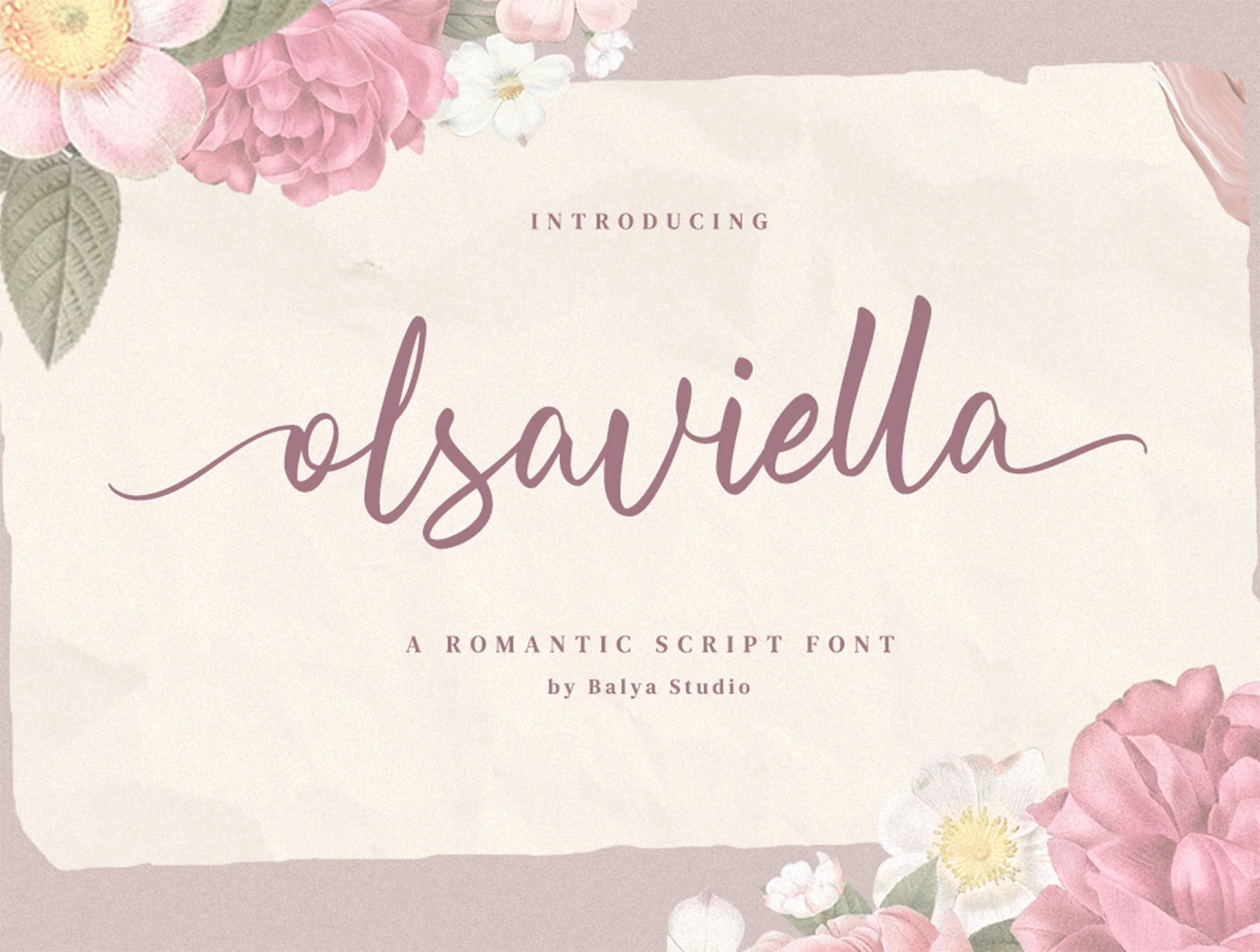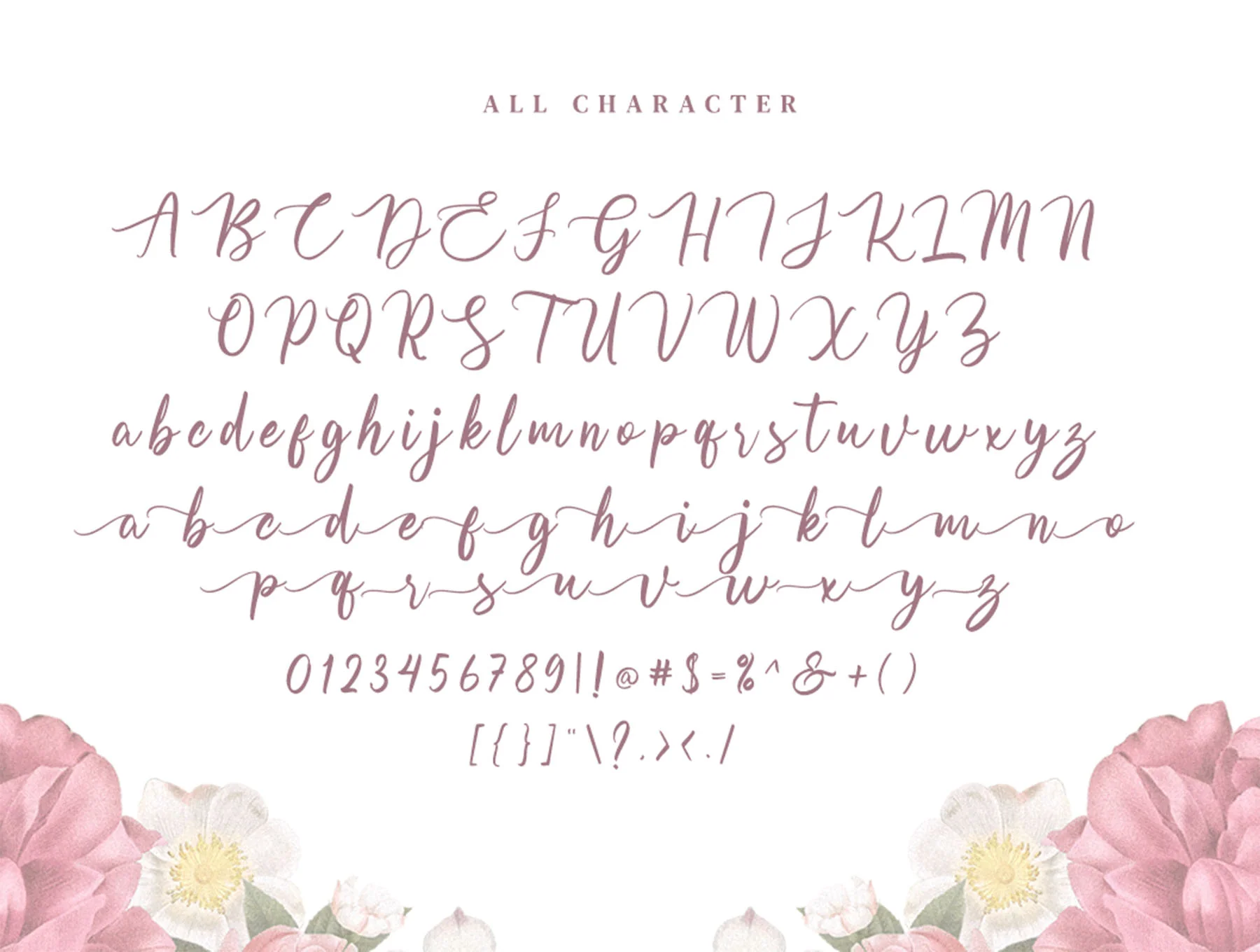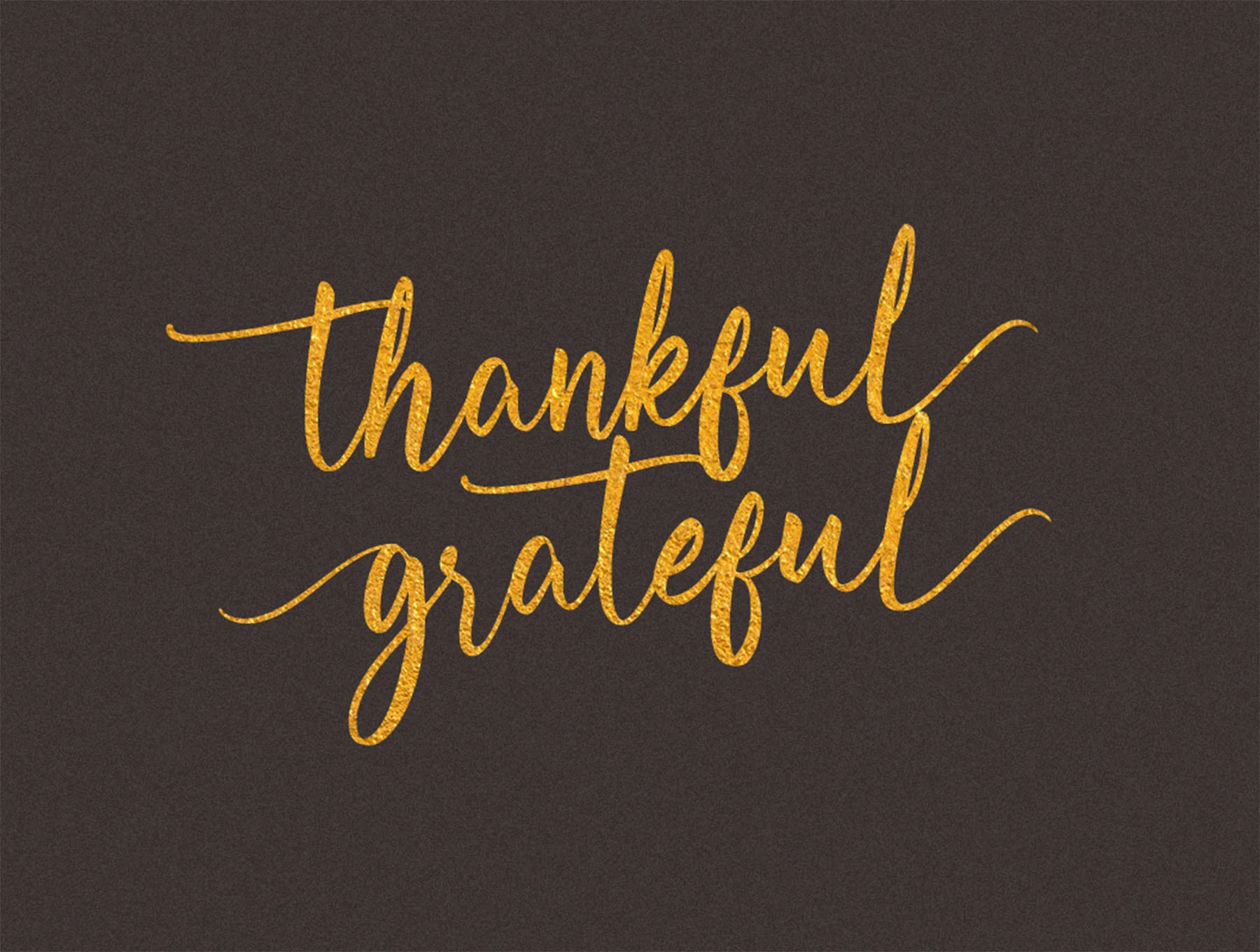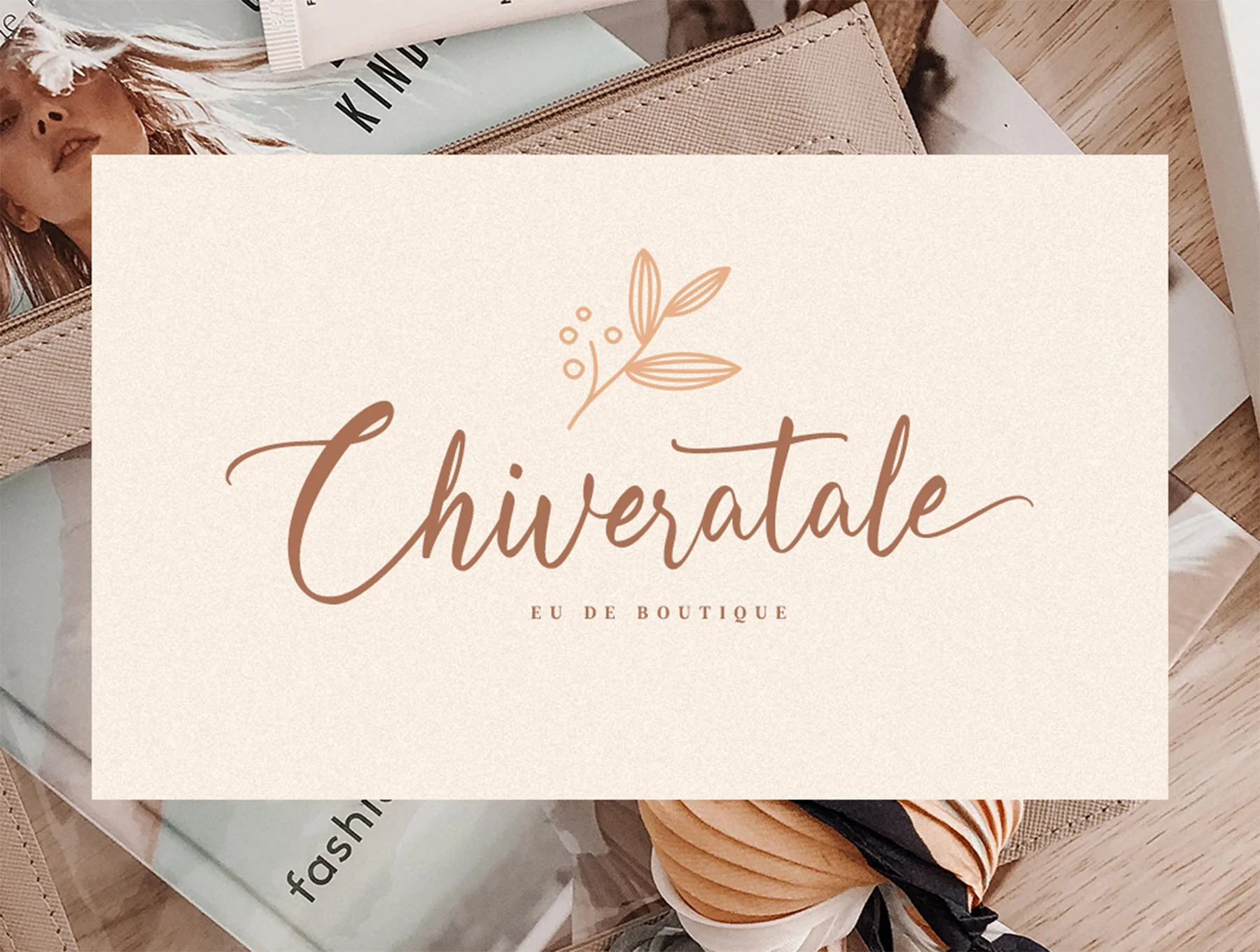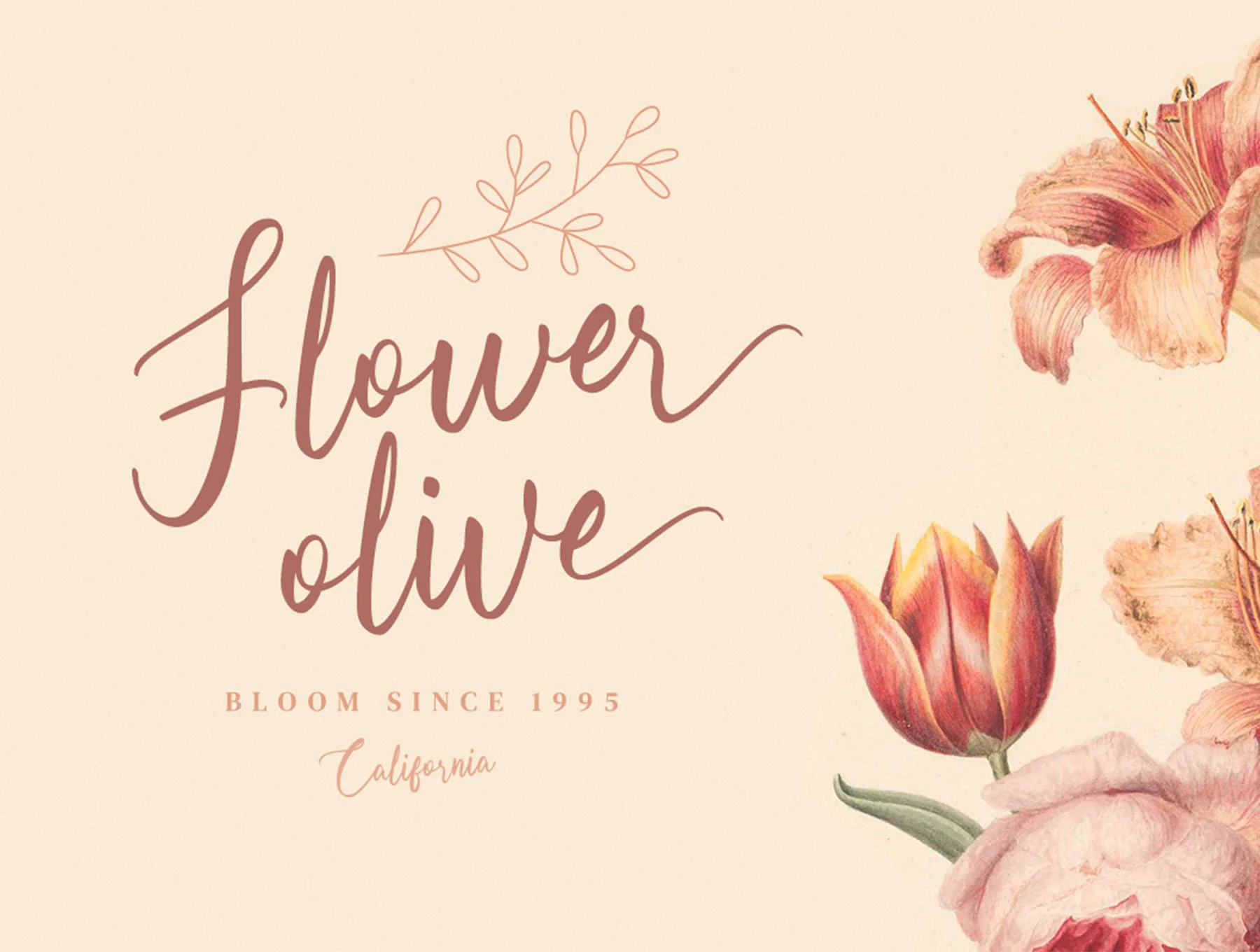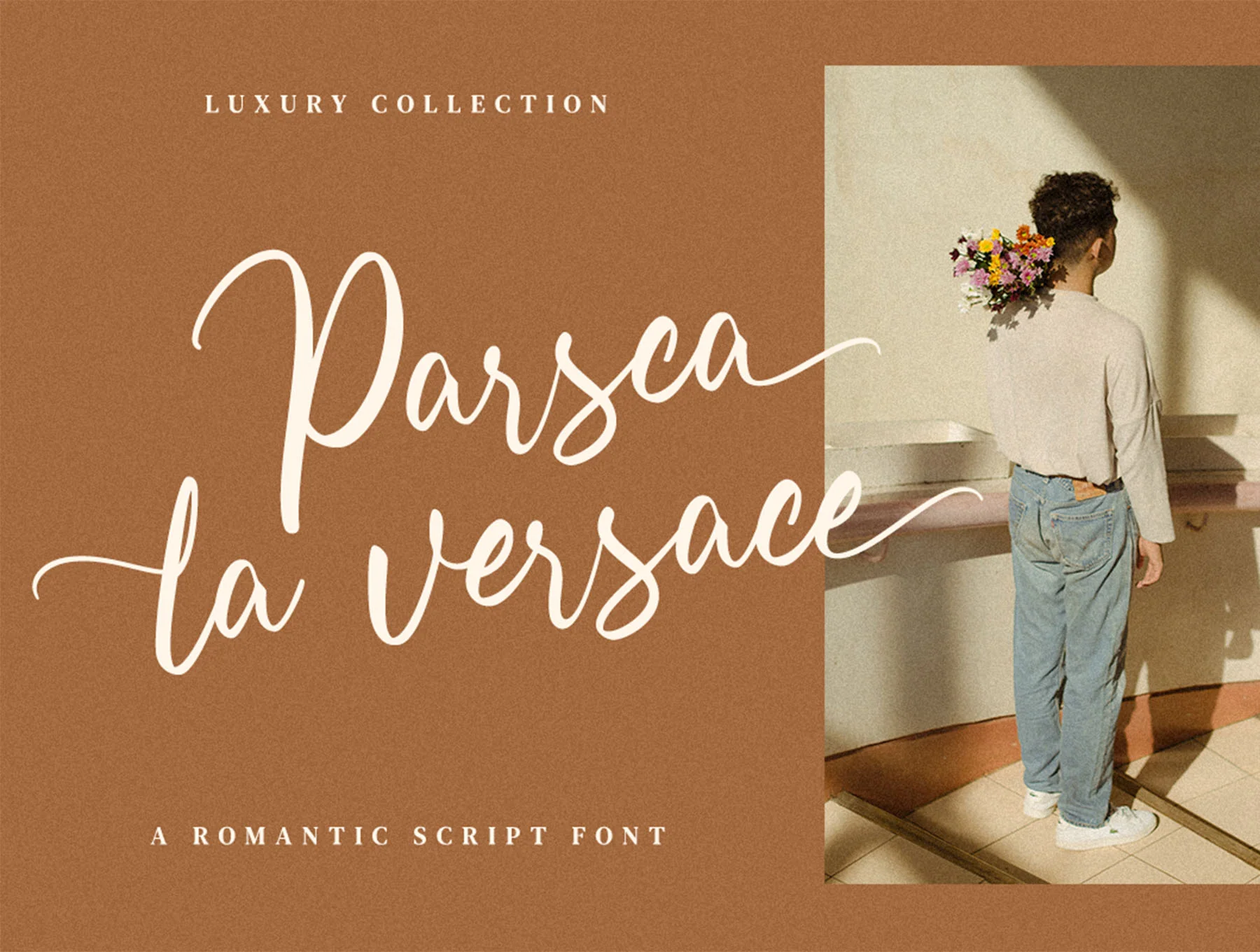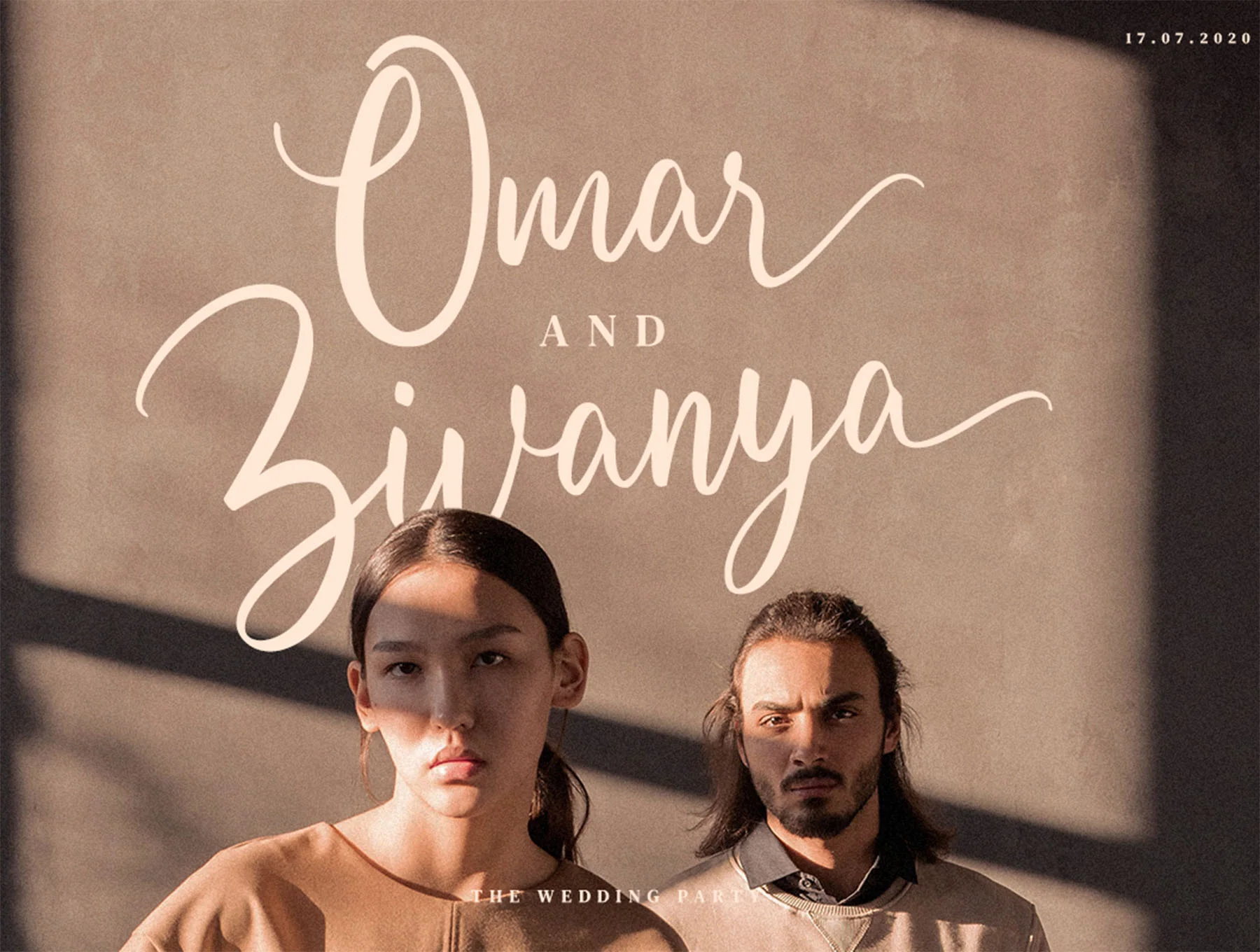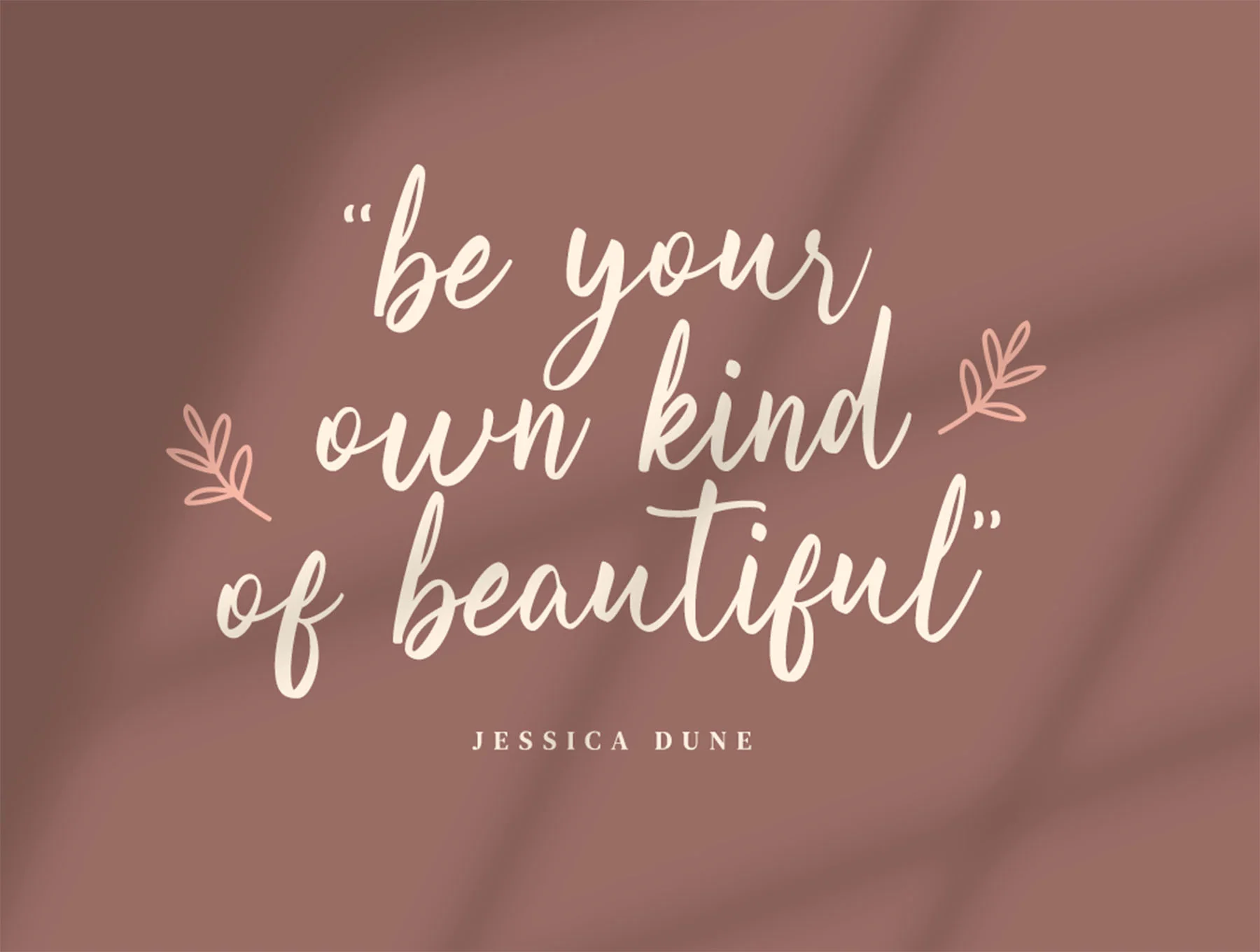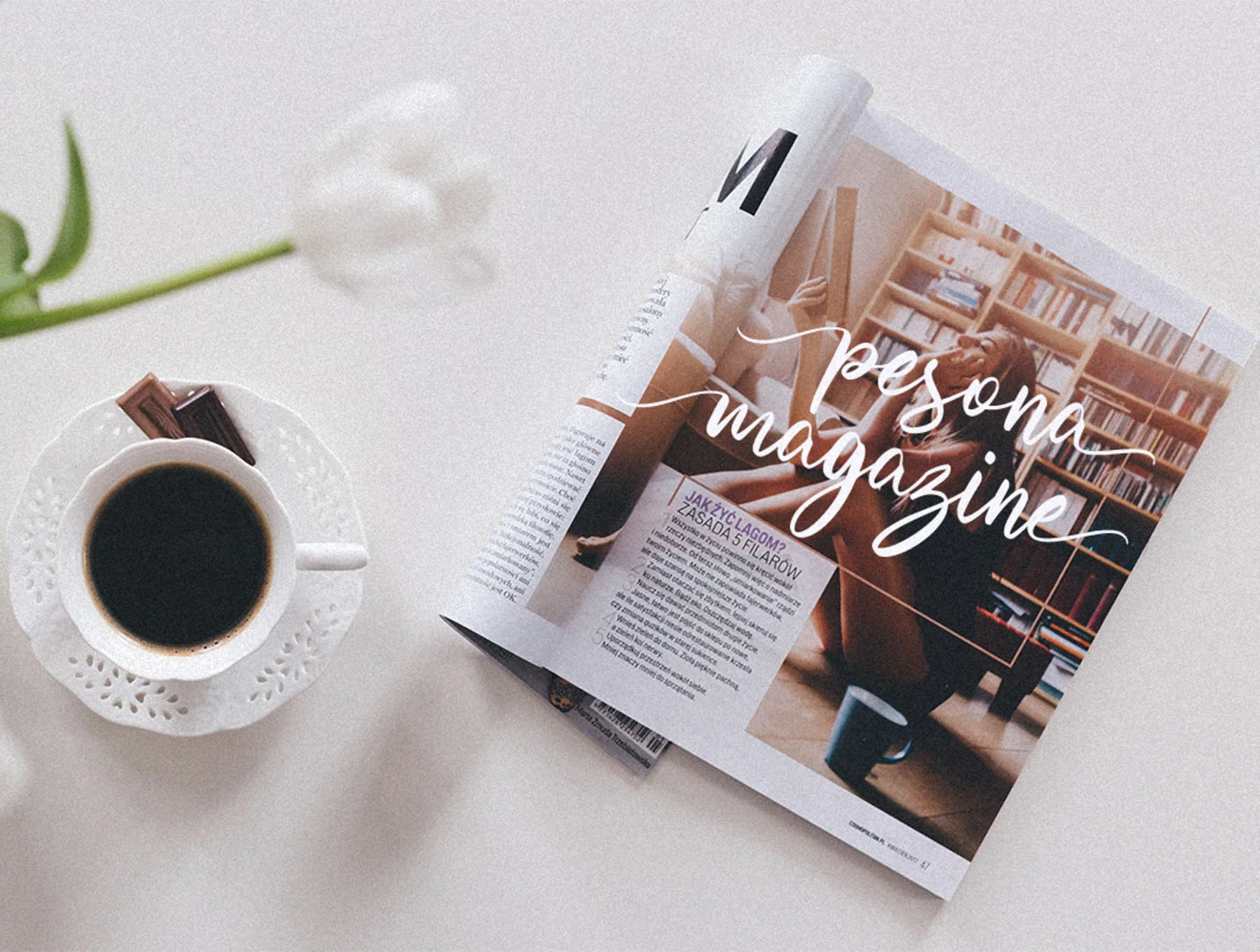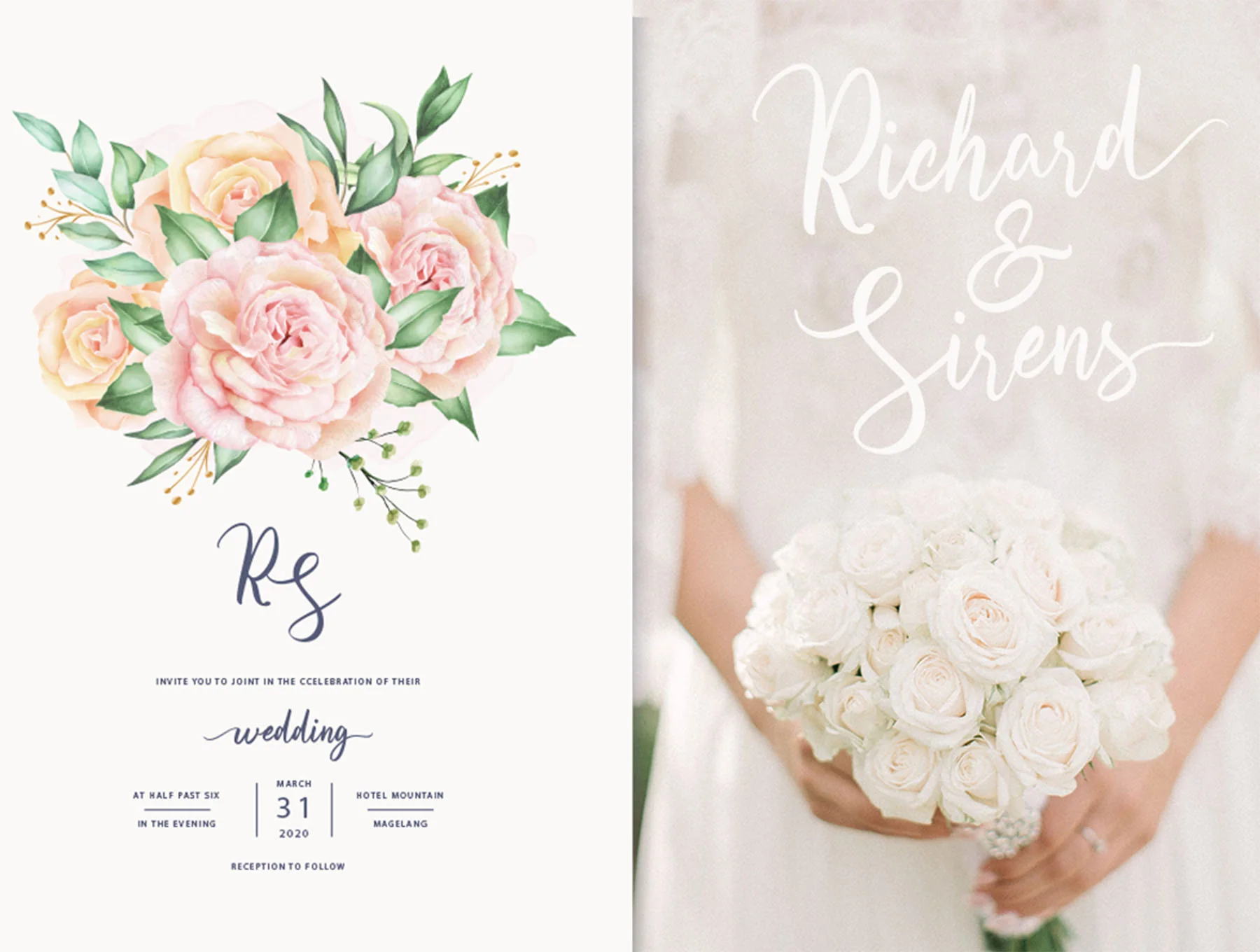
Olsaviella Signature Font
Distinctive Typeface
Olsaviella is an elegant signature font ideal for beauty projects, branding, and stylish designs. Includes OTF, TTF, and WOFF files, plus uppercase and lowercase characters. Contact us with any questions; we are glad to help. Follow, share, or add to favorites.